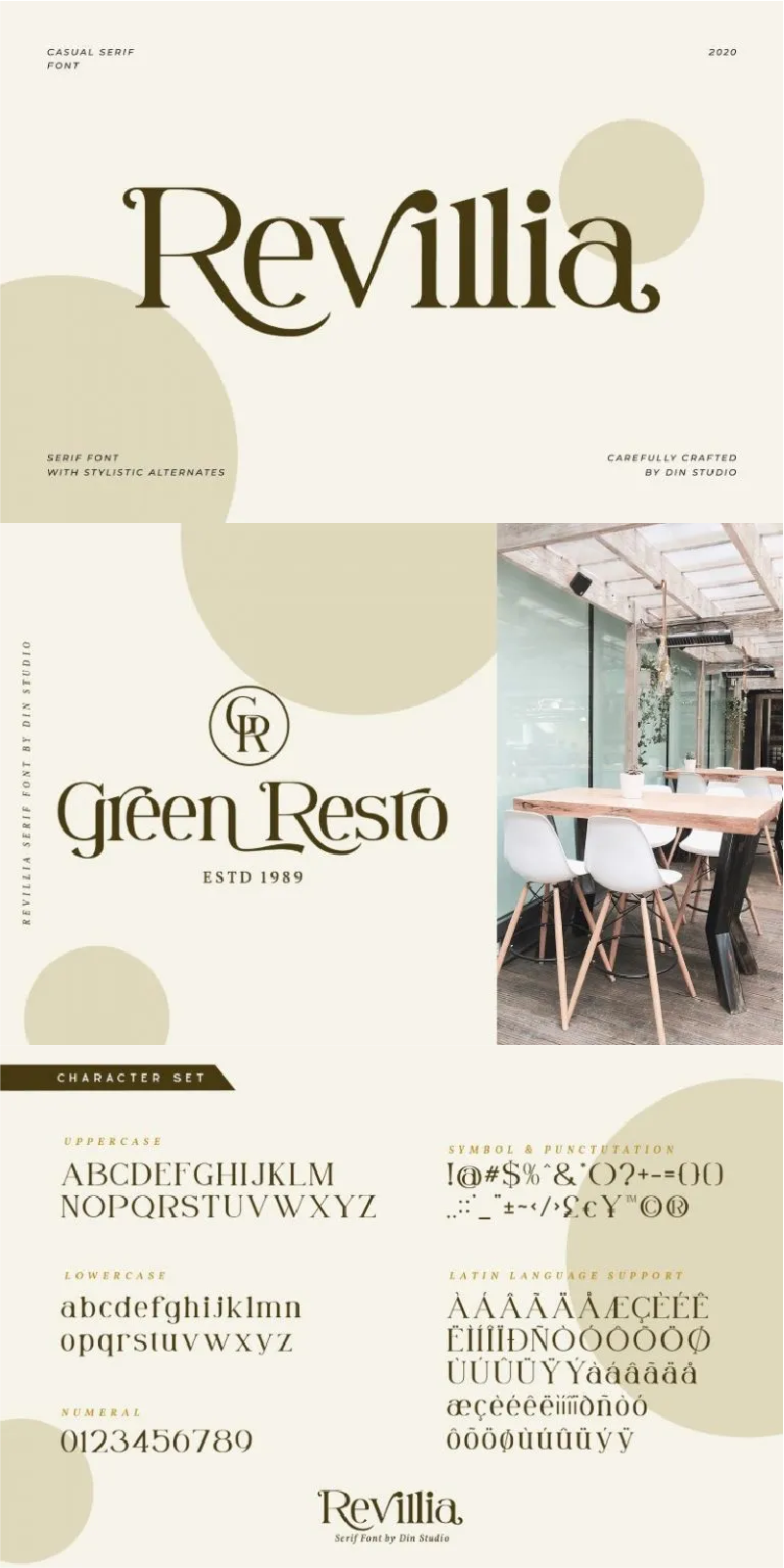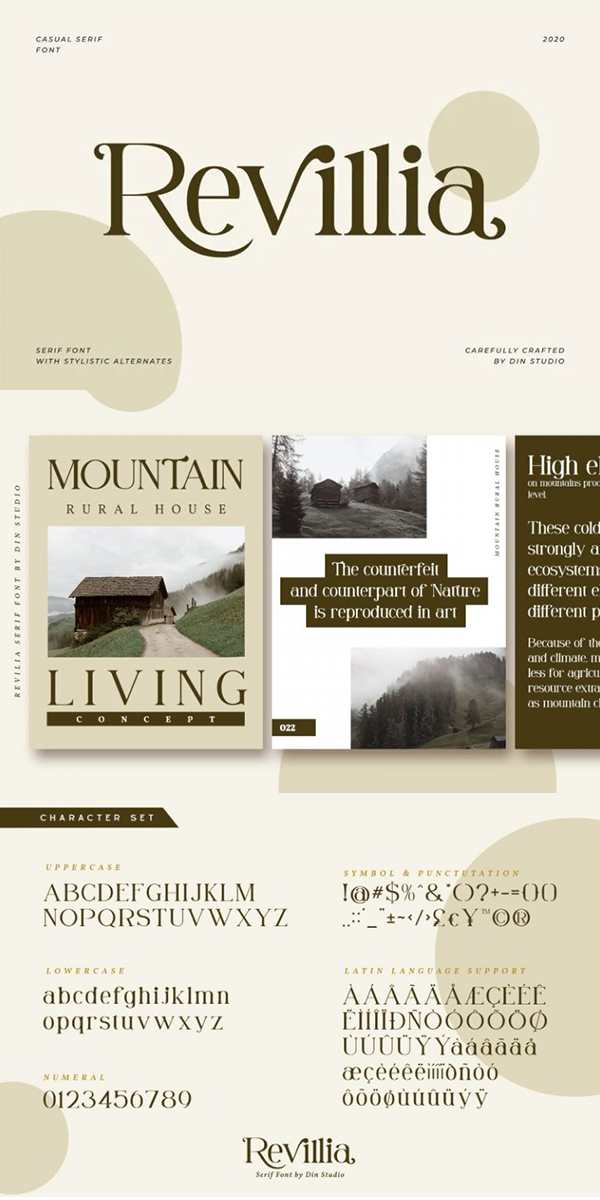
Revillia Font
About Revillia
Revillia is casual serif font. Make your dream design come true and add elegant, modern style to Revilia as this font expresses clean eligible displays. It is the best for any design projects, such as posters, banners, logos, book covers, album covers, quotes, invitations, greeting cards, name cards, headings, printed products, merchandise, social media, etc. Find out more ways to use this font by taking a look at the font preview.
-Many Swashes
It is perfect to be used for many design projects, such as poster, logo, book cover, branding, heading, printed product, merchandise, quotes, social media campaign, etc. Learn more about how to use it by seeing the font preview.